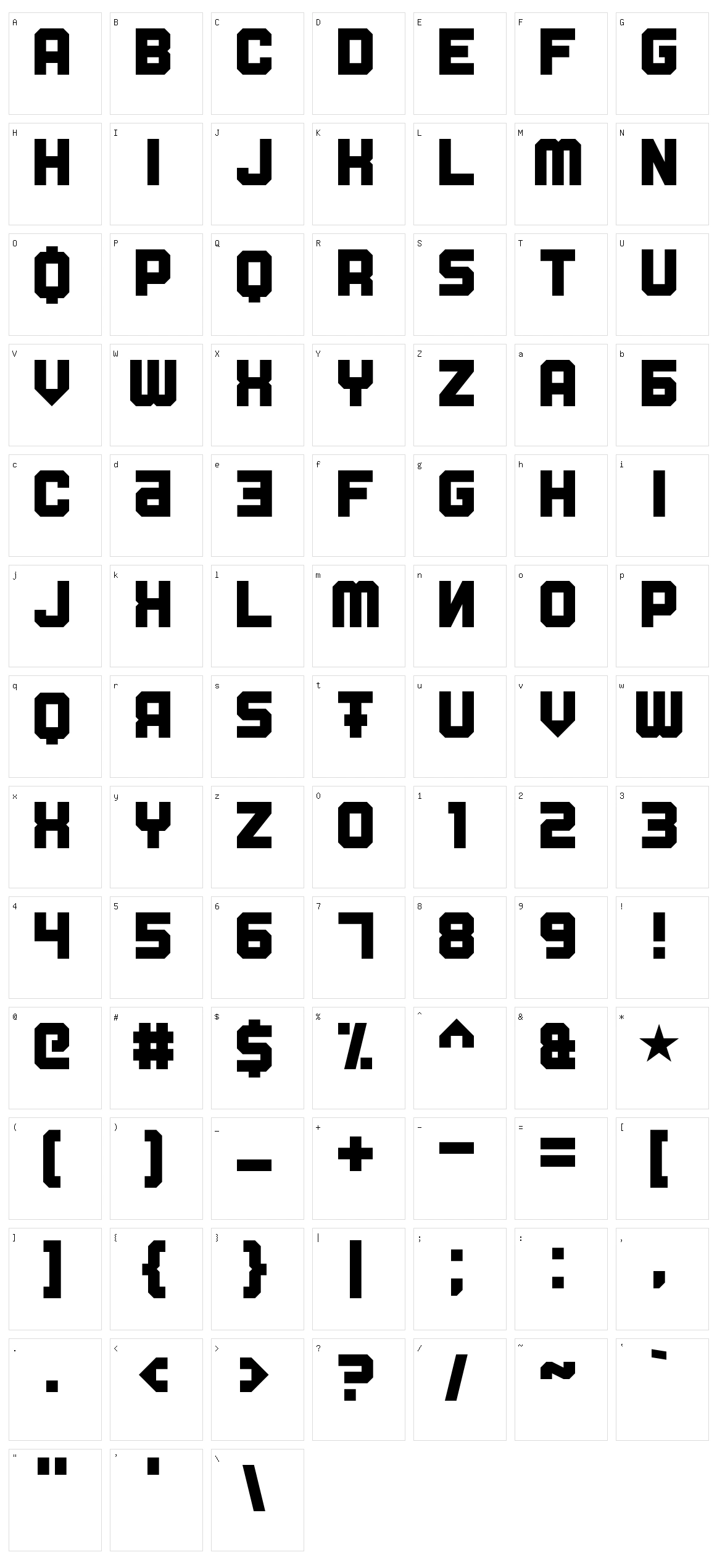
The free font Fatherland Faker is carefully designed by Chequered Ink, showcasing a thoughtful balance of creativity and usability and falls under the Russian font style. When you download the ZIP file, it contains only 6.83 KB of font files, making it lightweight and quick to download. Please review the license details below to understand permitted usage and distribution rights. If license information is not available, we recommend using this font for personal projects only or contacting the author directly for commercial usage permissions.